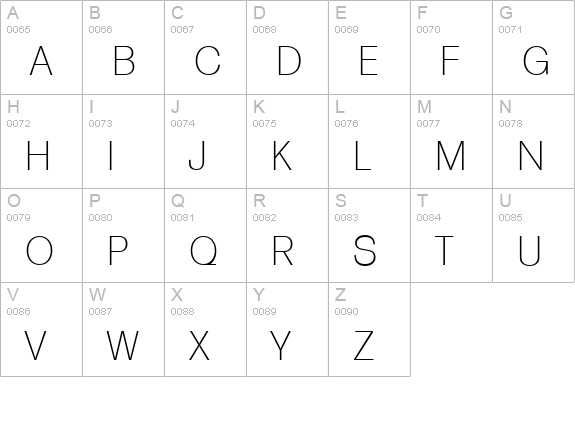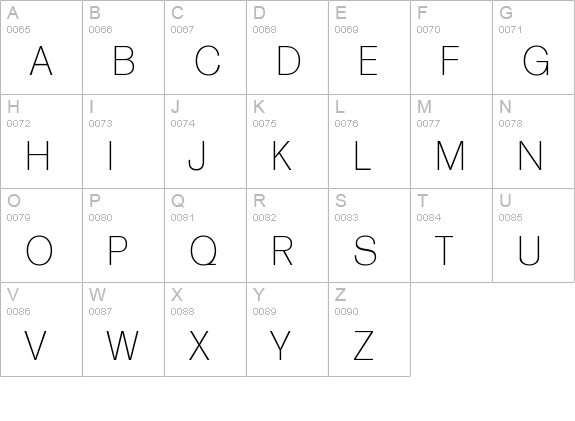
FormulaSerial-Xlight-Regular is the standard, neutral variant in the FormulaSerial typeface family \xE2\x80\x94 well suited to general body text, paragraphs, and standard typographic work.
FormulaSerial-Xlight-Regular is a sleek and modern typeface that exudes elegance and sophistication. With its clean lines and balanced proportions, this font is perfect for a wide range of design projects, from branding to editorial layouts. The light weight of the font gives it a delicate and refined appearance, making it ideal for conveying a sense of subtlety and sophistication. What sets FormulaSerial-Xlight-Regular apart is that it is not only aesthetically pleasing, but it is also freely available to download at FontsMarket.com. This means that you can easily access this high-quality font without any cost, making it a valuable addition to your font library. Whether you're a professional designer looking for a versatile typeface or a hobbyist looking to enhance your creative projects, FormulaSerial-Xlight-Regular is a fantastic choice that won't break the bank.